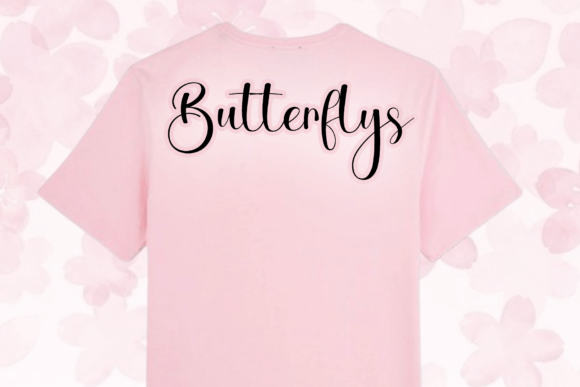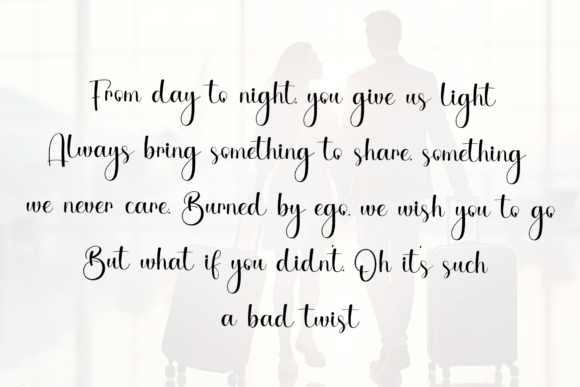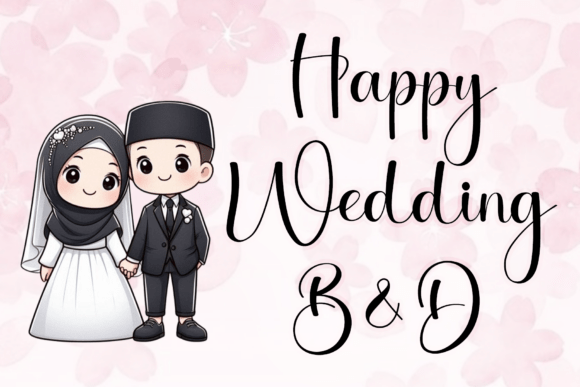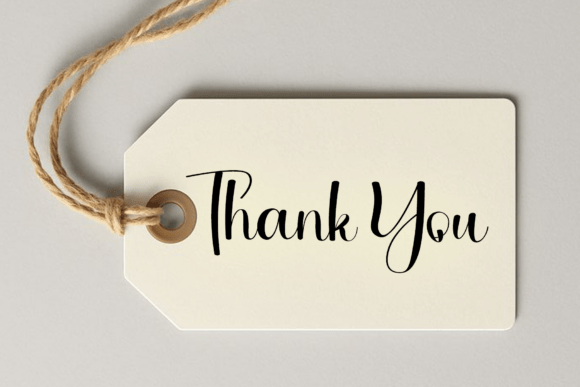
Have you ever sat in front of a blank canvas, staring at your computer screen, waiting for inspiration to strike? You’re not alone. We’ve all been there, searching for that one perfect font to bring our designs to life. And today, I’m excited to share with you a font that’s sure to spark some creativity – the lovely Kitty Dolly Font.
This beautiful handwritten font is designed to add a touch of whimsy and elegance to your designs. With its unique and beautiful touches, Kitty Dolly Font is the perfect choice for creating eye-catching logos, branding, and quotes. Whether you’re a seasoned designer or just starting out, this font is sure to become a valuable addition to your toolkit.
So, what makes Kitty Dolly Font so special? For starters, every letter has a unique and beautiful touch that will make your design come alive. Its timeless design ensures that your work will remain relevant and stylish for years to come.
Kitty Dolly Font Key Features
- Unique Characteristics: The Kitty Dolly font features a playful, cursive script with a mix of bold and delicate lines, making it perfect for adding a touch of whimsy to designs.
- Kerning and Ligatures: The font includes advanced kerning and ligature features, ensuring that text sets up smoothly and looks professional, even in complex compositions.
Kitty Dolly Font Review
I recently had the chance to work with the Kitty Dolly font, and I’m sharing my honest thoughts with you.
The Kitty Dolly font has a whimsical, playful feel that’s perfect for children’s books, nursery decor, and other projects where a touch of sweetness is needed. The font’s curved lines and soft edges give it a friendly, approachable vibe that’s sure to delight.
- The font’s high x-height makes it easy to read, even at smaller sizes.
- The character set includes a wide range of punctuation and symbols, making it a great choice for projects that require a lot of text.
While the Kitty Dolly font is great for certain projects, it may not be the best choice for more formal or professional designs. The font’s playful feel can come across as juvenile or unprofessional in some contexts.
- The font lacks bold and italic styles, which can limit its versatility.
- The font may not be suitable for projects that require a lot of text in a small space, as the curves and lines can make it difficult to read.
Overall, I think the Kitty Dolly font is a great choice for projects that require a touch of whimsy and playfulness. While it may have some limitations, its unique feel and high x-height make it a great option for designers looking to add some personality to their work.
Getting the Most Out of Kitty Dolly Font
To get the most out of Kitty Dolly Font, try combining it with other playful and whimsical design elements, such as illustrations and graphics. Experiment with different font sizes and colors to create a visually appealing design.
Kitty Dolly Font is commonly used for children’s party invitations, birthday cards, and other playful designs. It’s also suitable for creating whimsical social media graphics and promotional materials.